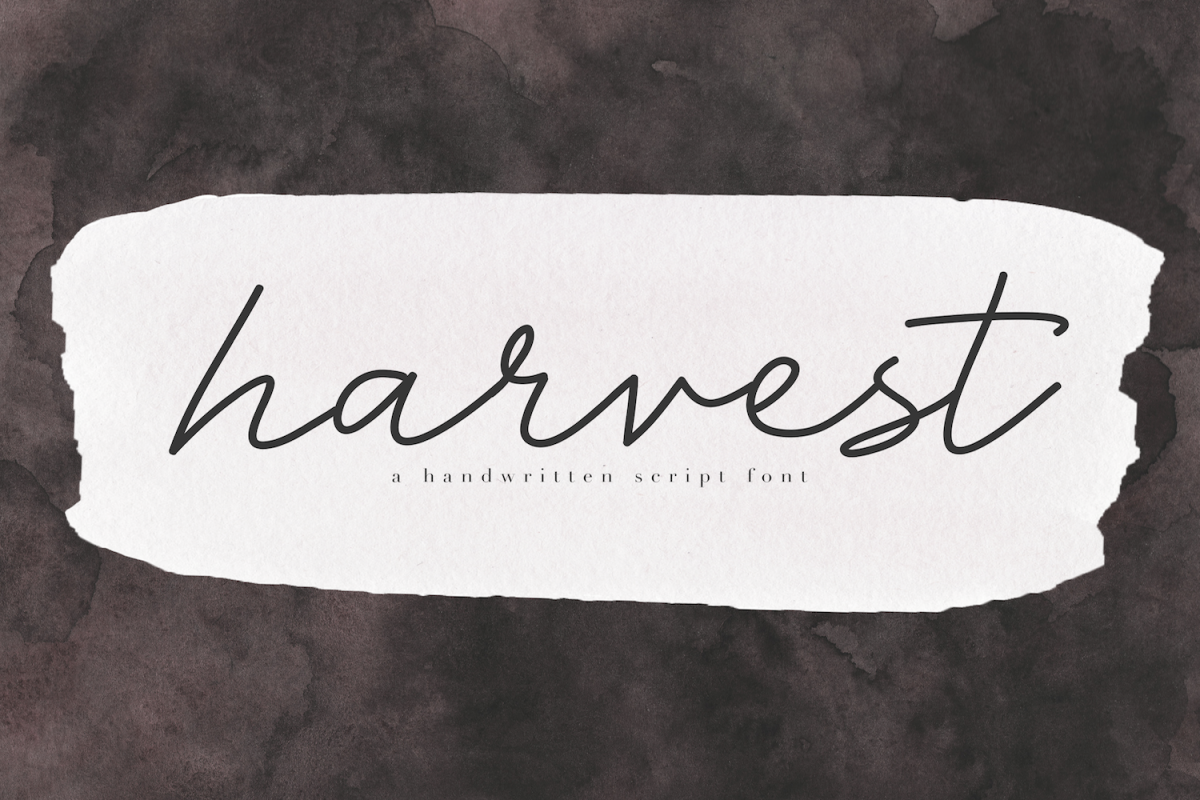
Harvest - A Handwritten Script Font
Harvest
Harvest is a elegant handwritten script font.
This font is perfect for farmhouse designs, svg files, quotes, logos, invitations and more!